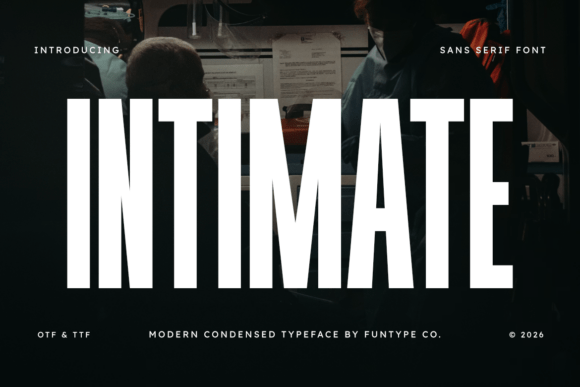
Intimate: A Bold Condensed Sans Serif for Modern Branding
I was staring at a blank artboard, the cursor blinking rhythmically as I tried to solve a branding puzzle for a new urban coffee roaster. The client wanted something that felt grounded yet electric, a visual identity that could shout from a street sign but still whisper sophistication on a minimalist bag of beans. I needed a typeface that commanded attention without feeling aggressive. That is when I pulled Intimate into my project file. As a designer who has tested hundreds of Sans Serif options, I knew immediately that this specific set of Fonts offered the exact balance of power and elegance required for the job.
Using Intimate for High-Impact Logo Design and Signage
The first step in any branding project is usually the logo, and Intimate proved itself instantly as a powerhouse for this application. Because Intimate is a bold, high-impact modern condensed sans serif font designed for maximum visibility, it naturally dominates the space without needing excessive spacing or decorative flourishes. When I typed the client's name, the solid, narrow letterforms created a striking vertical rhythm that felt architectural and stable. In the world of Sans Serif typography, finding a font that maintains its integrity at large scales can be tricky, but these Fonts held up perfectly.
I placed the draft on a mockup of a storefront window and then on a hanging metal sign. The powerful structure of the typeface ensured that even from a distance, the brand name was legible and commanding. Unlike some condensed fonts that become illegible when scaled up, Intimate retained its clean lines and contemporary aesthetic. For a business relying on foot traffic, having a logo that works effectively on signage is non-negotiable, and this typeface delivered exactly what was needed for immediate recognition.
Applying Intimate to Packaging Labels and Product Identity
Once the logo was approved, the challenge shifted to packaging design, where every millimeter counts. I began testing Intimate on the front label of the coffee bags, and the results were surprisingly versatile. Since Intimate is a bold, high-impact modern condensed sans serif font designed for maximum visibility, it allowed me to fit essential product information like roast level and origin without cluttering the design. Its solid, narrow letterforms and powerful structure make it an excellent choice for wrapping around cylindrical containers or fitting onto small square stickers.
In the realm of Sans Serif packaging, whitespace is often the most valuable asset. By using these Fonts, I was able to create a hierarchy where the brand name stood out boldly while leaving room for other critical details. The modern feel of the typeface suggested quality and precision, which aligned perfectly with the artisanal nature of the product. It transformed a simple paper bag into a premium object that customers would want to keep on their counter, proving that the right choice of typography can elevate physical products significantly.
Integrating Intimate into Digital Headers and Web Typography
Moving from print to digital, I started building the homepage hero section for the client's website. Here, readability and loading speed are paramount, and Intimate shined again. As a designer, I often struggle to find Sans Serif fonts that look good both on a high-resolution screen and in mobile viewports, but these Fonts adapted seamlessly. The condensed nature of Intimate meant I could use larger point sizes for headlines without breaking the layout grid, creating a dramatic entrance for visitors.
The clean, contemporary aesthetic of the typeface made it ideal for web headers, ensuring that the message was absorbed instantly. I paired the bold weight of Intimate with a lighter body text to create a strong visual contrast. This combination not only improved the user experience by guiding the eye through the content but also reinforced the brand's professional image. For any creative studio or entrepreneur looking to build a digital presence, utilizing a display font like this can drastically improve engagement rates and reduce bounce times.
Pairing Intimate with Serif and Script Fonts for Contrast
No typeface exists in a vacuum, and one of the joys of working with Intimate was discovering how well it plays with others. While Intimate is a bold, high-impact modern sans serif font, its neutral geometry allows it to pair beautifully with more ornate styles. I experimented with pairing it against a classic serif font for body copy, which added a touch of tradition and warmth to the modern boldness. This contrast created a dynamic tension that kept the design interesting.
I also tested Intimate alongside a handwritten script font for accent elements like "freshly roasted" or "small batch." The juxtaposition of the rigid, geometric Sans Serif structure against the fluidity of a script font highlighted the best qualities of both. These Fonts worked together to tell a complete story: the reliability of the brand mixed with the human touch of craftsmanship. For designers looking to expand their toolkit, understanding how to mix a heavy condensed face with delicate scripts or traditional serifs is a skill that elevates any project from good to great.
Choosing Intimate for Social Media Graphics and Marketing Assets
The final stage of the project involved creating assets for social media, where competition for attention is fierce. I needed a font that would stop the scroll, and Intimate was the perfect solution. Because Intimate is a bold, high-impact modern condensed sans serif font designed for maximum visibility, it cuts through the noise of a crowded Instagram feed or LinkedIn timeline effortlessly. Its solid, narrow letterforms and powerful structure make it an exceptional choice for overlaying text on busy photography.
When designing flyers, posters, and promotional cards, the versatility of these Fonts became apparent. Whether it was a quote about coffee culture or a call to action for a new product launch, the typeface maintained its authority. The modern typography style ensures that the brand feels current and relevant, avoiding the dated look of generic stock fonts. For marketers and content creators, having a reliable, high-impact typeface in your arsenal means you can produce consistent, professional-looking graphics quickly, saving time and enhancing brand cohesion across all platforms.